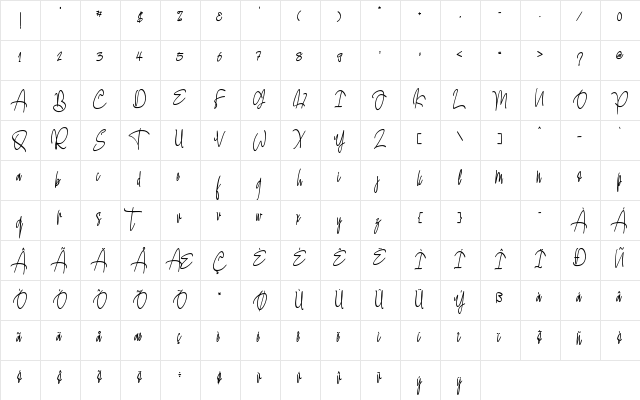
Harriesse Regular
Design Context for Harriesse Typeface
Harriesse is a composed and adaptable typeface that performs quietly and consistently across a wide range of design contexts.